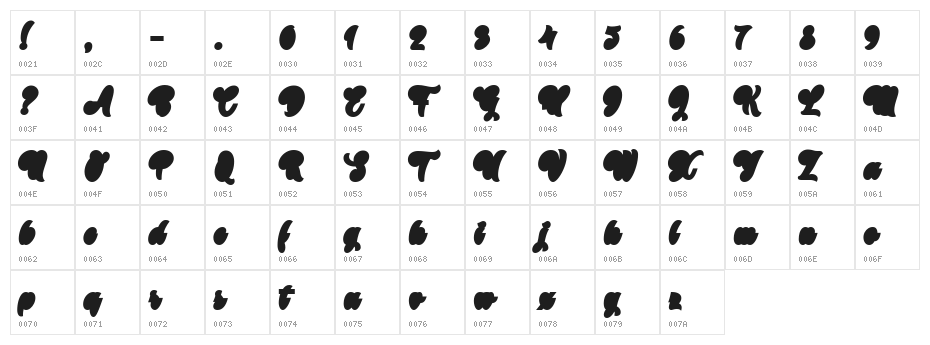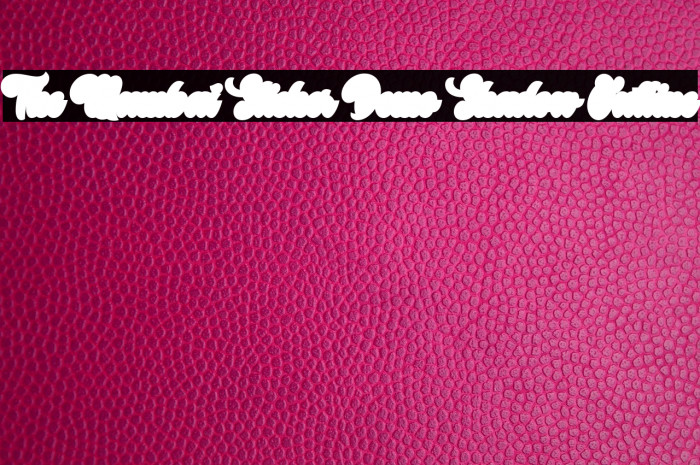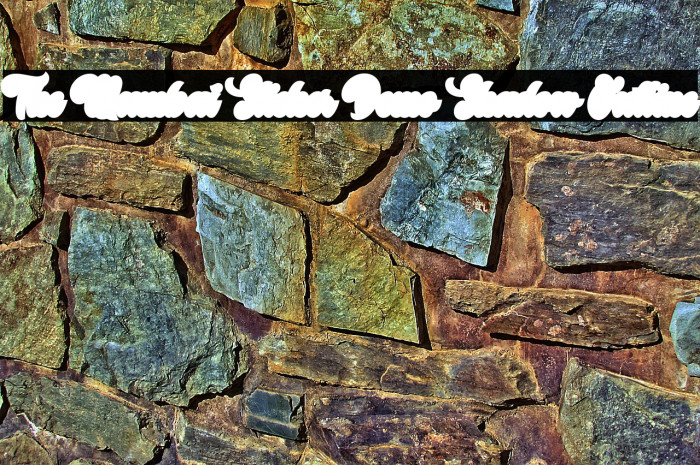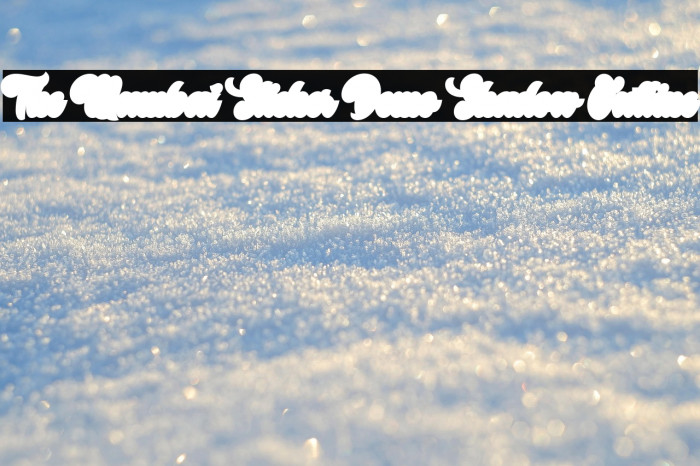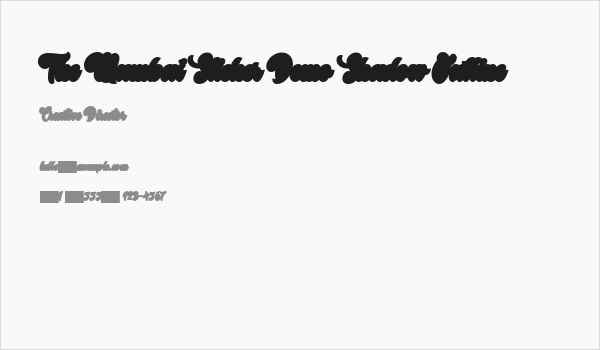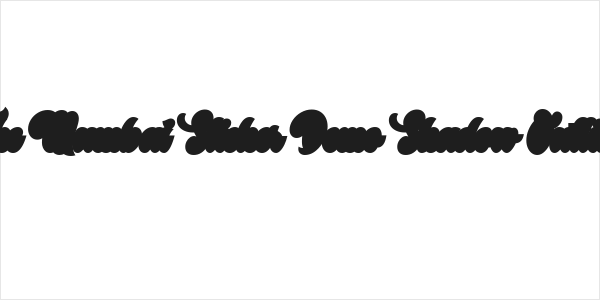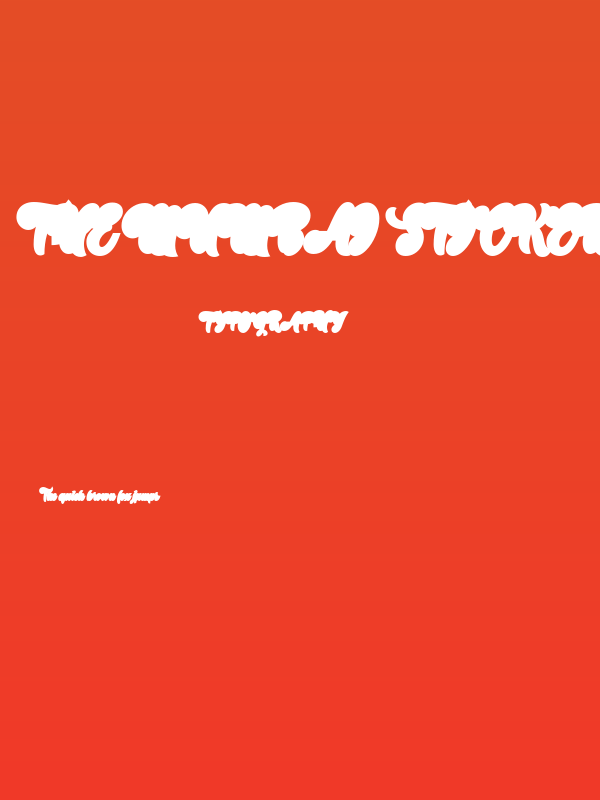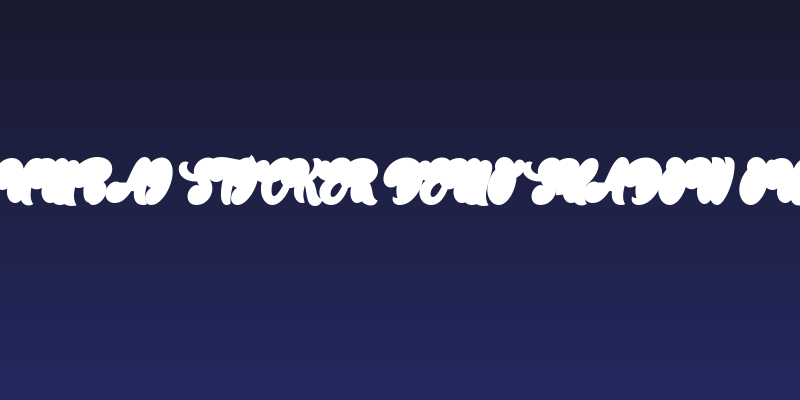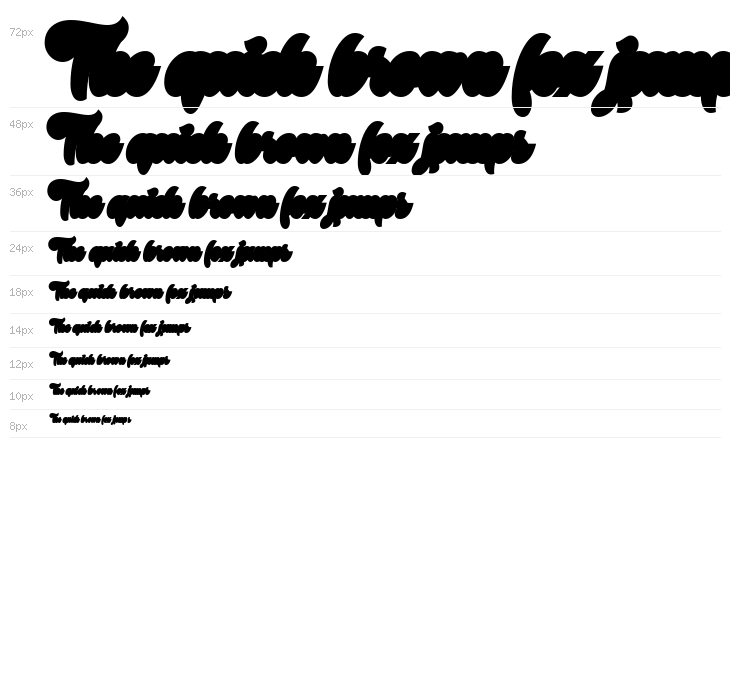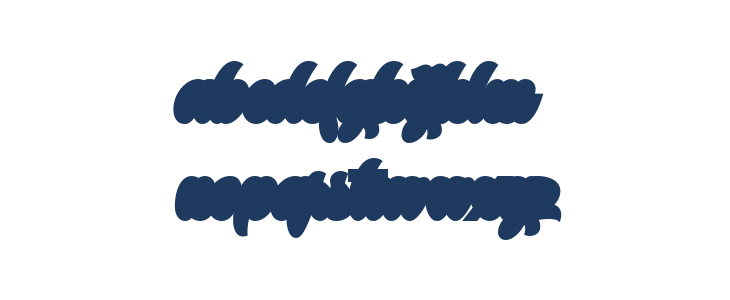
The Mumbai Sticker Demo Shadow Outline Font
The Mumbai Sticker Demo Shadow Outline Description
This font features a bold, shadowed outline style that gives it a striking and dynamic appearance. The characters are thick and rounded, with a playful and energetic feel. The shadow effect adds depth, making the letters stand out prominently. This style is reminiscent of graffiti or street art, with a modern twist that captures attention. The uppercase and lowercase letters maintain a consistent style, while the numbers and special characters are equally bold and expressive. The overall design is cohesive, making it suitable for projects that require a strong visual impact.
| Proposed Projects | Ideal for street art designs, posters, event flyers, and branding that requires a bold statement. |